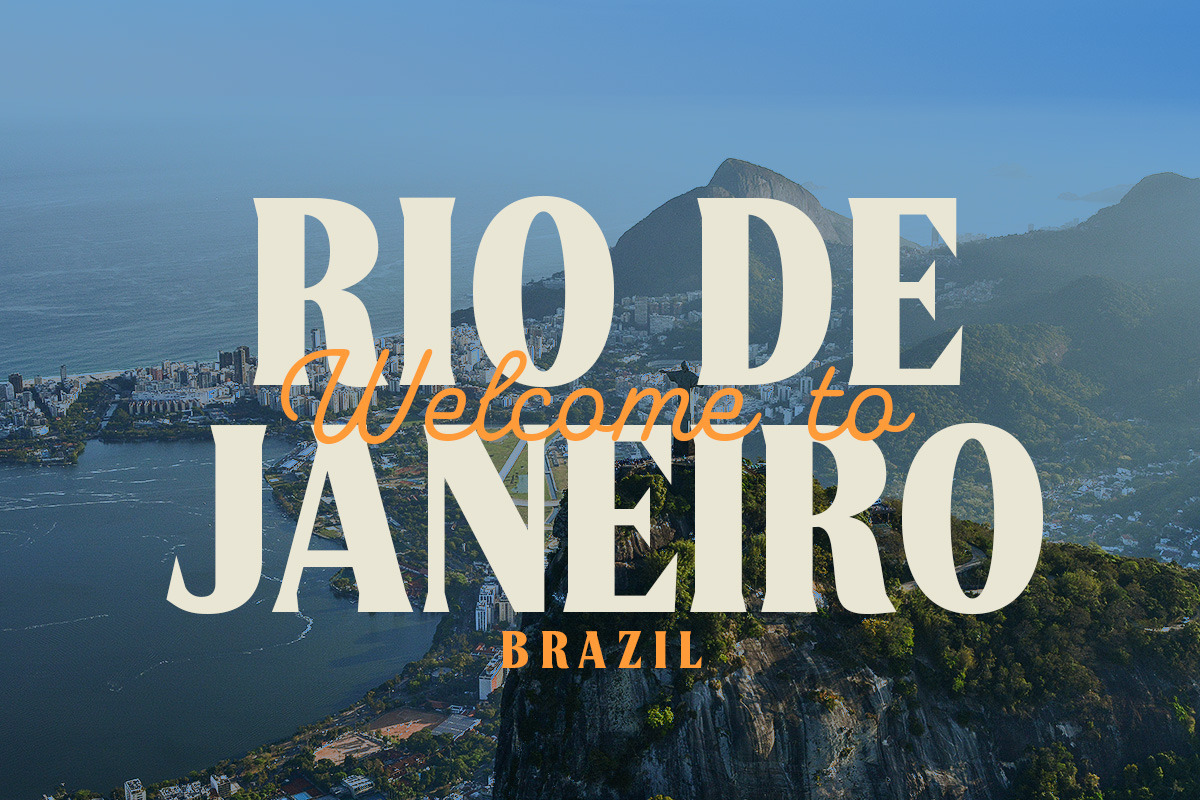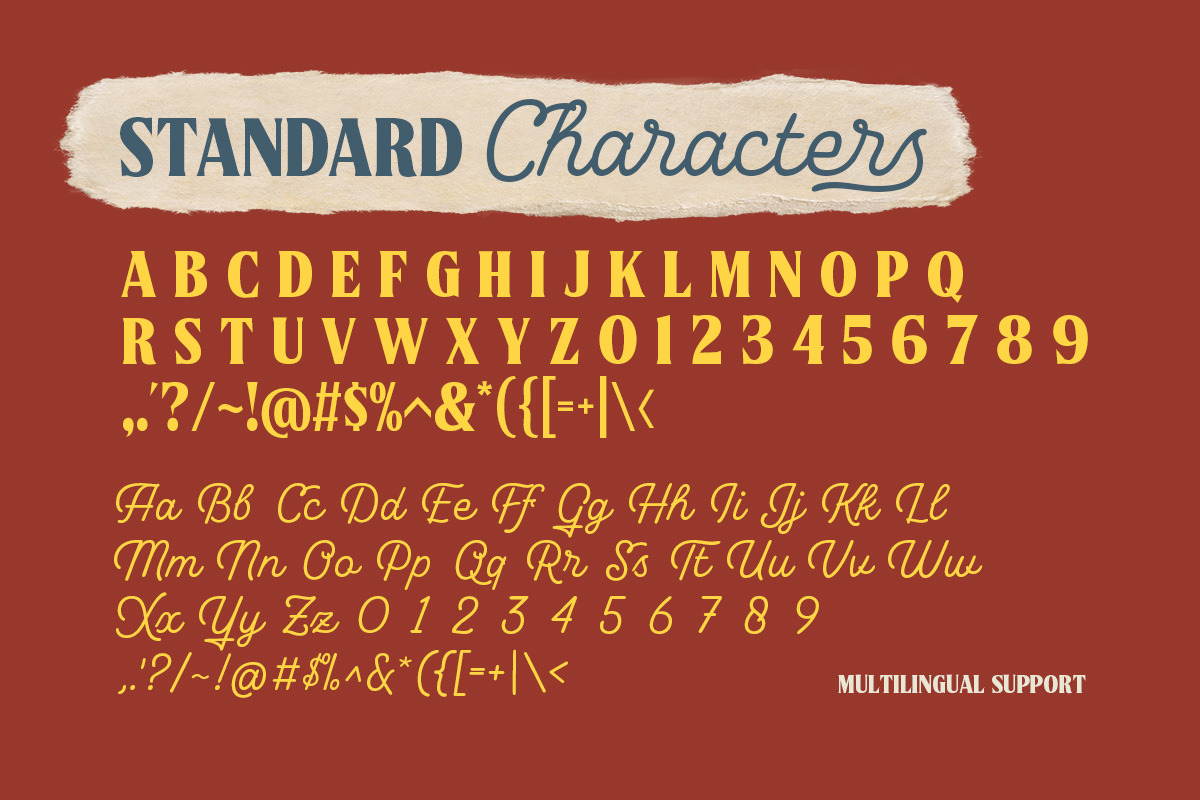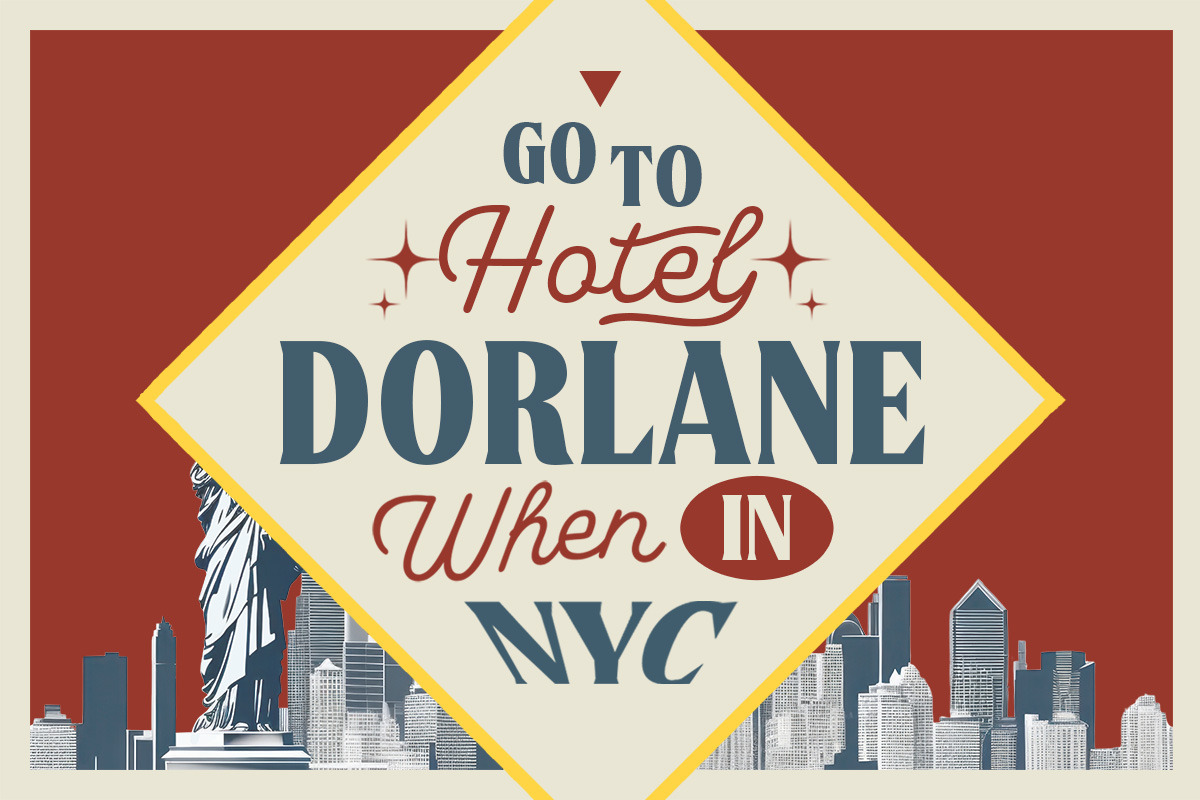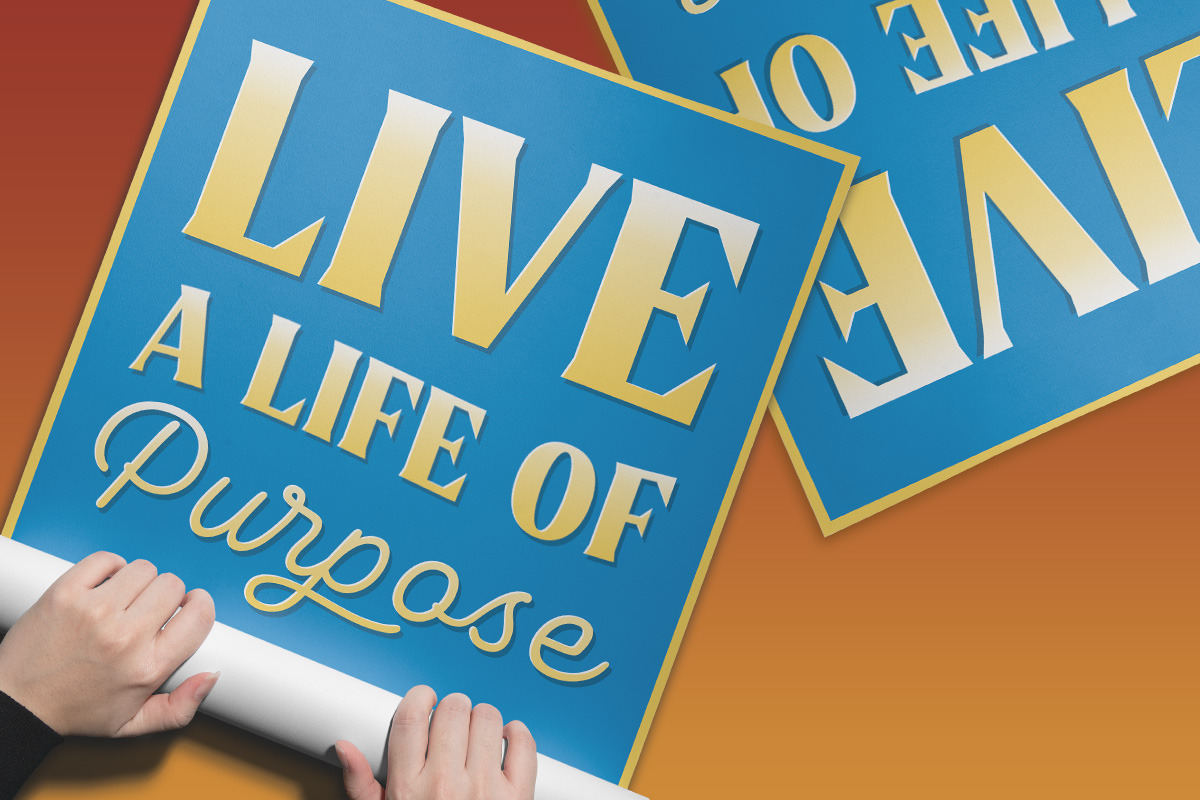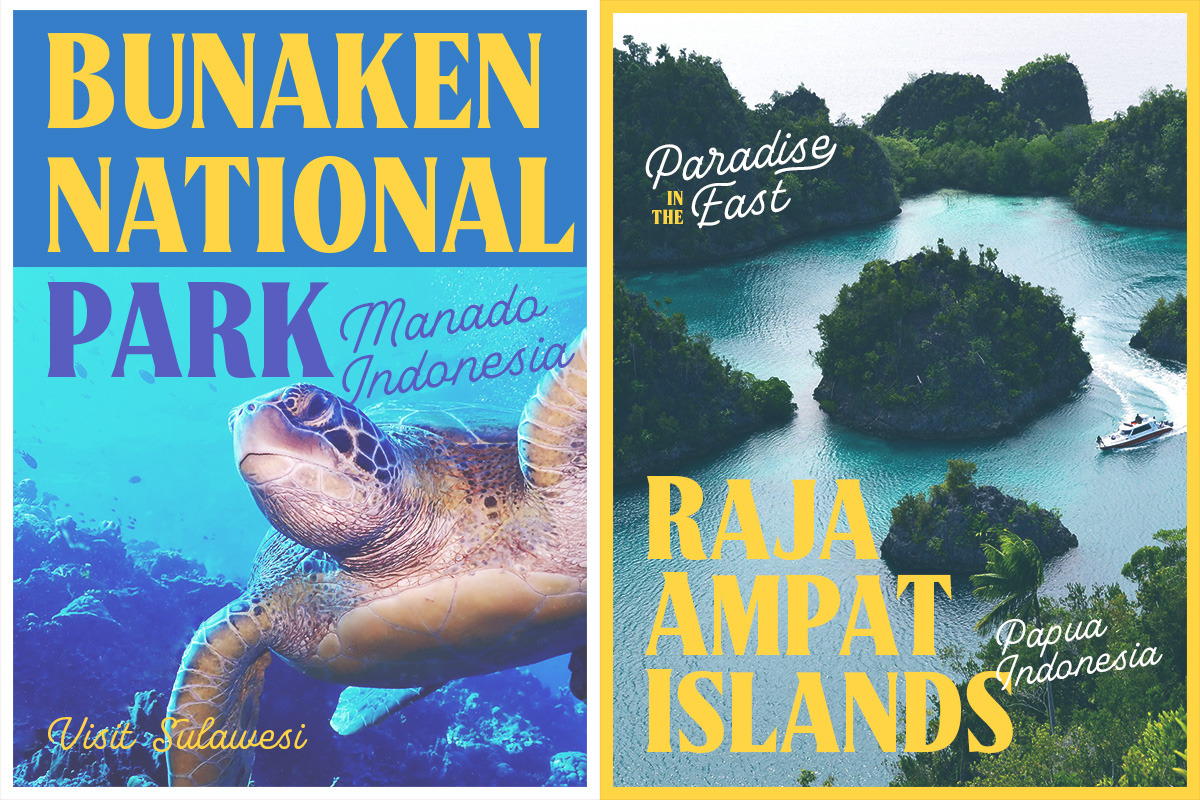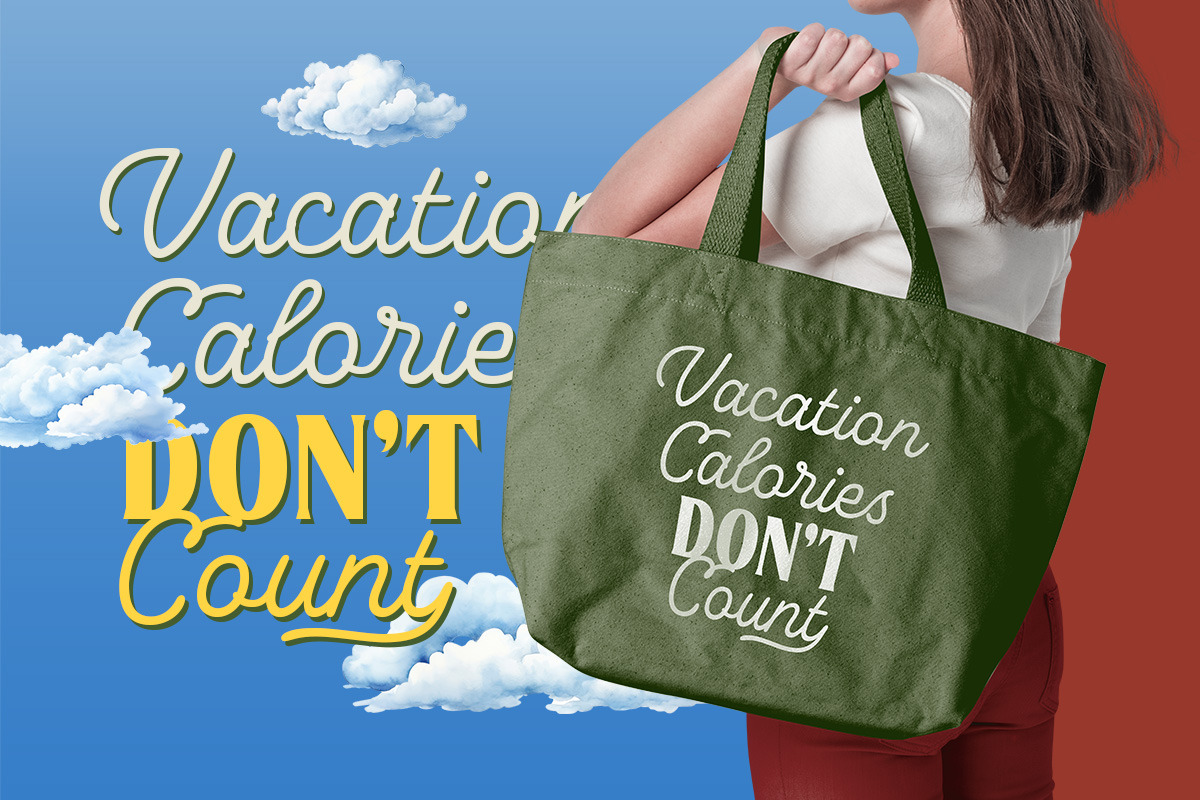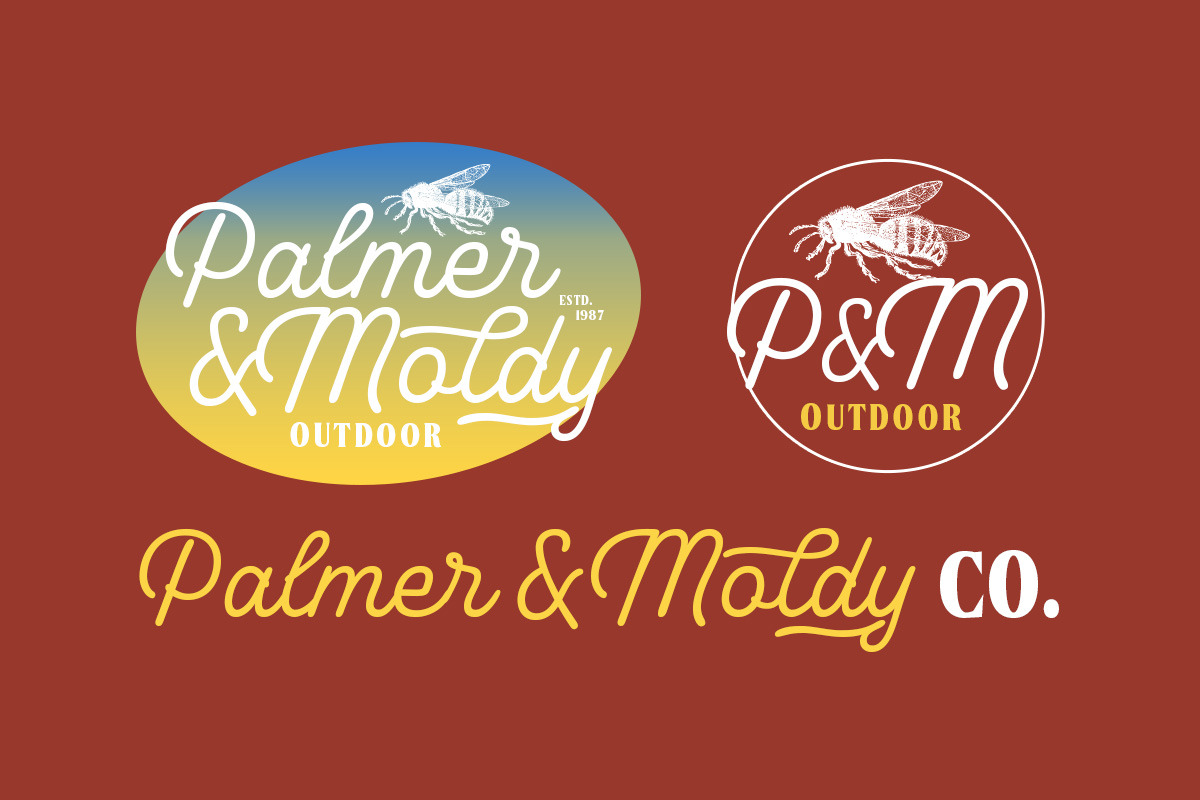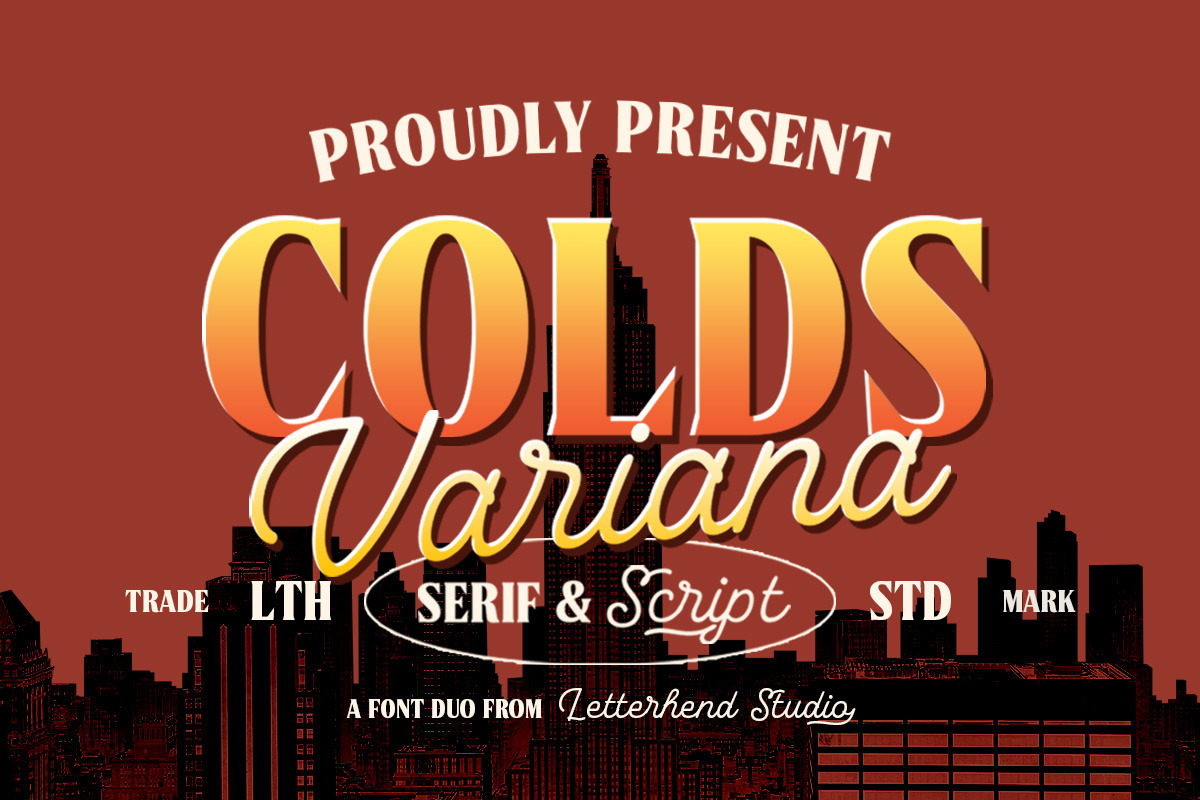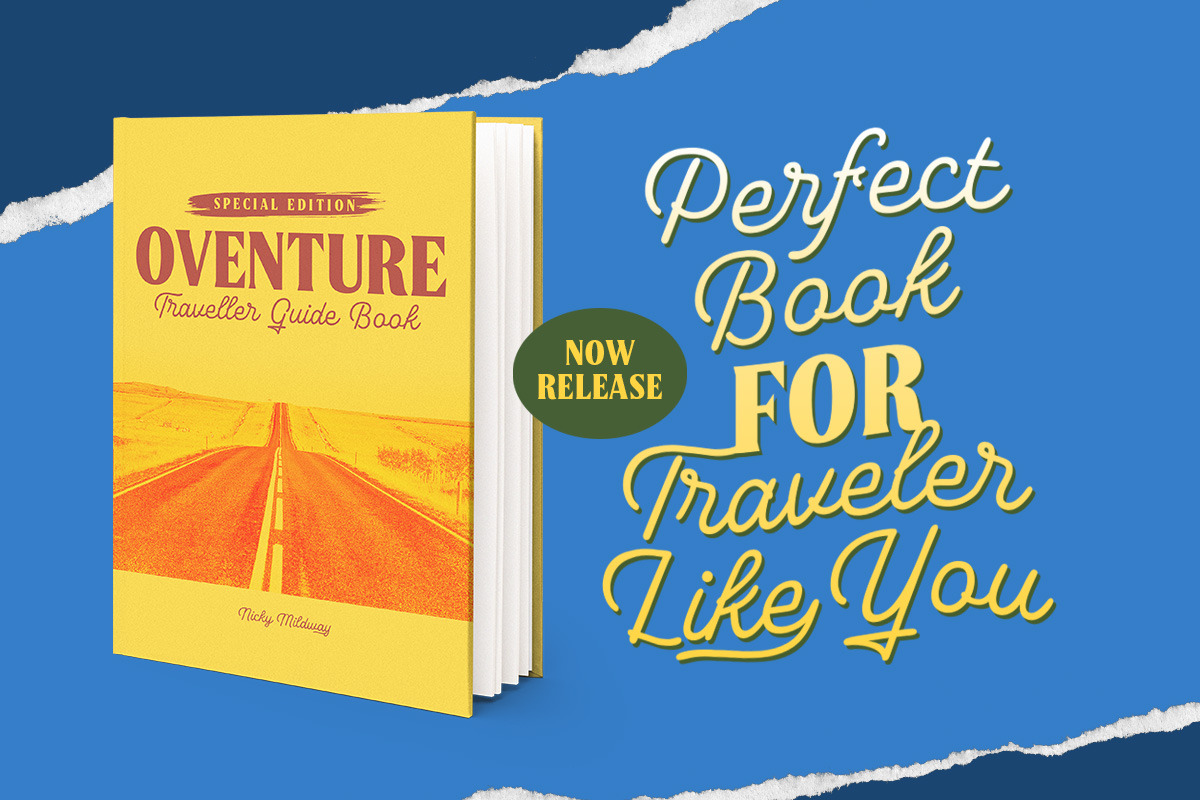
Cold Variana Font Duo
Introducing, Cold Variana - a classy font duo with monline script and classic serif in one typeface. This type of font perfectly made to be applied especially in logo, headline, signage and the other various formal forms such as invitations, labels, logos, magazines, books, greeting / wedding cards, packaging, fashion, make up, stationery, novels, labels or any type of advertising purpose.
- Serif & Sans